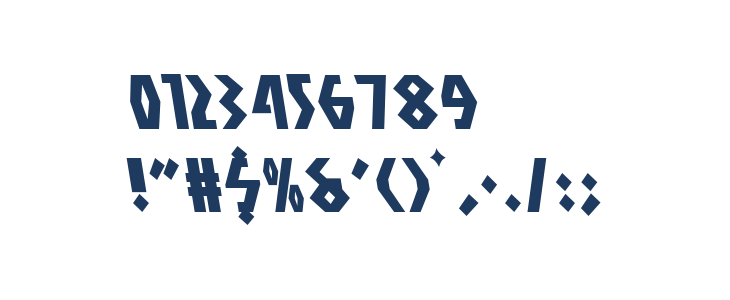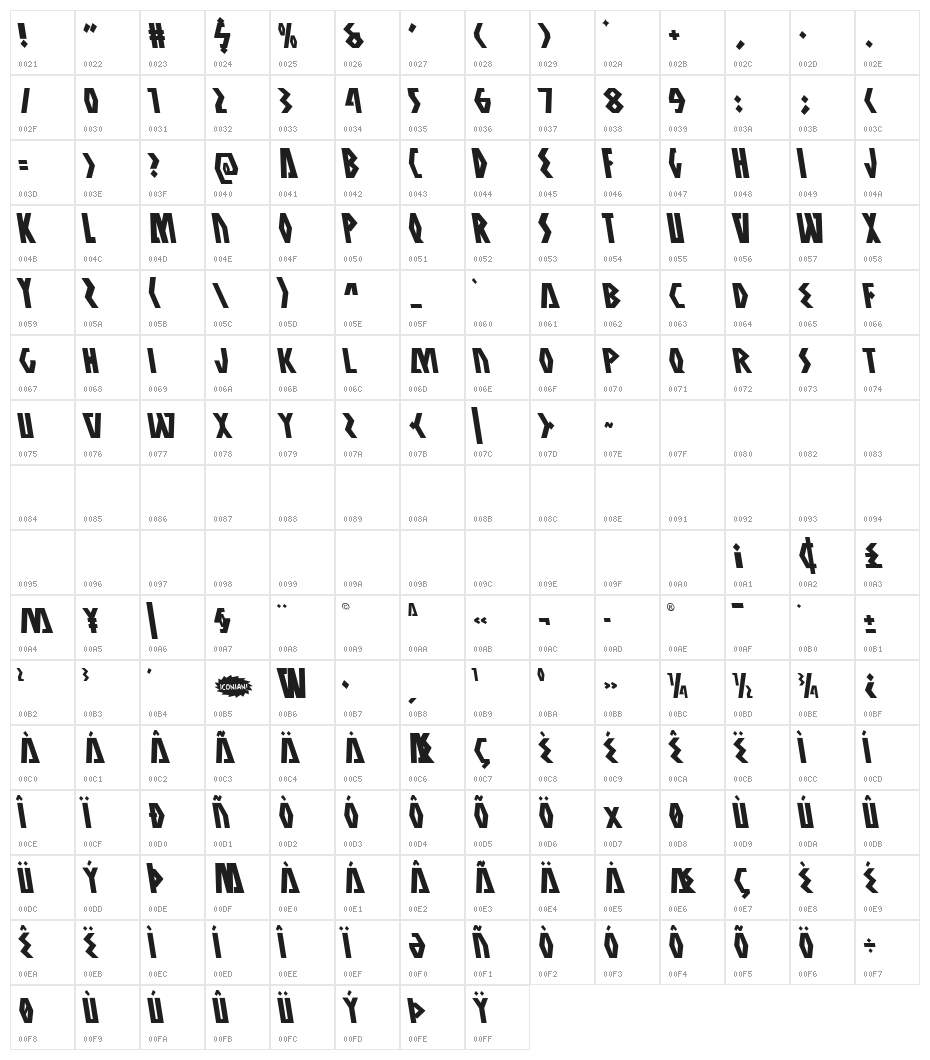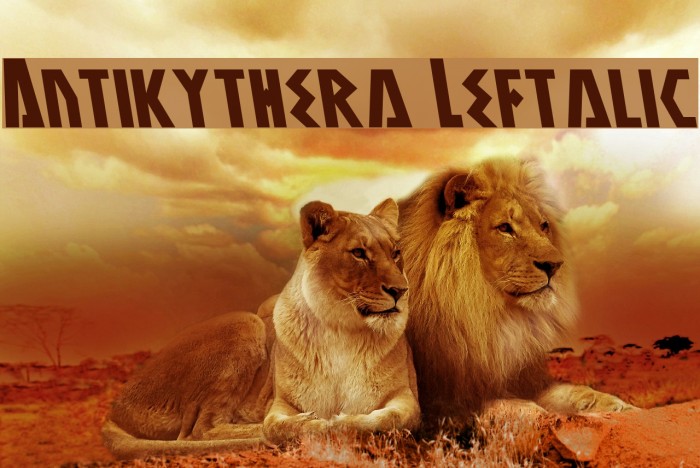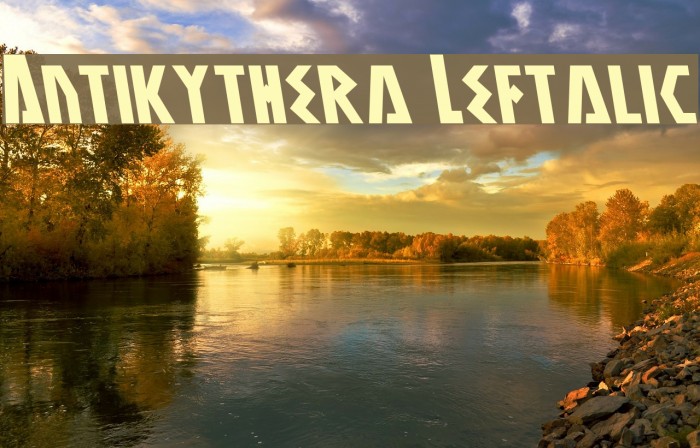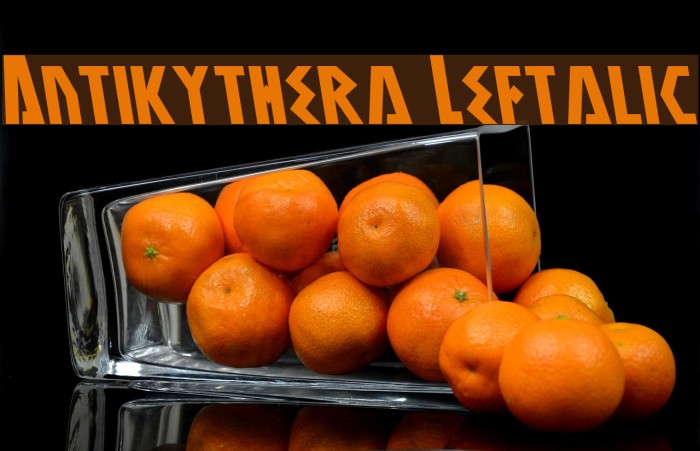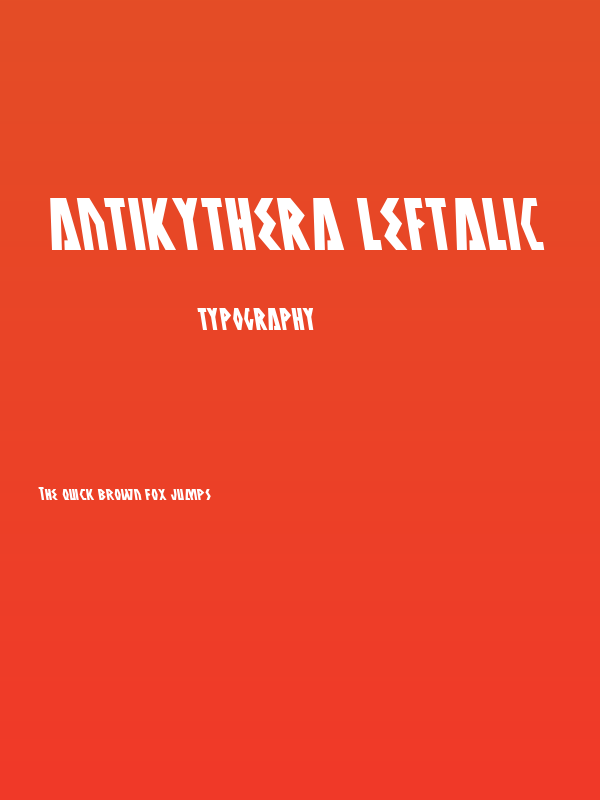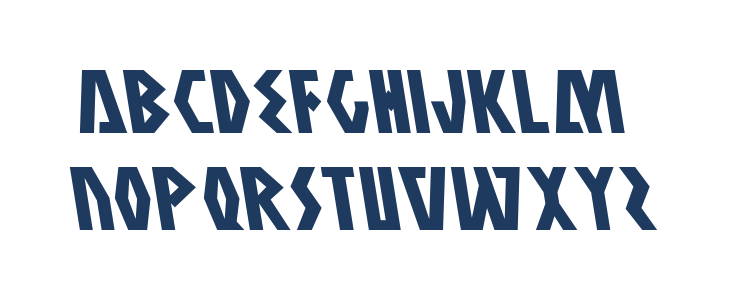
Antikythera Leftalic Font
Antikythera Leftalic Description
This font features a bold, angular design with a distinct geometric style. The characters are sharply cut with a leftward slant, giving a dynamic and edgy appearance. The uppercase and lowercase letters maintain a consistent angular theme, while the numerals and special characters follow suit with a similar sharpness. The overall design is reminiscent of futuristic or sci-fi aesthetics, making it stand out with its unique and modern look. The font's boldness and angularity make it ideal for attention-grabbing headlines or titles that require a strong visual impact.
| Proposed Projects | Ideal for sci-fi themed posters, video game titles, branding for tech companies, and any project requiring a modern, edgy look. |